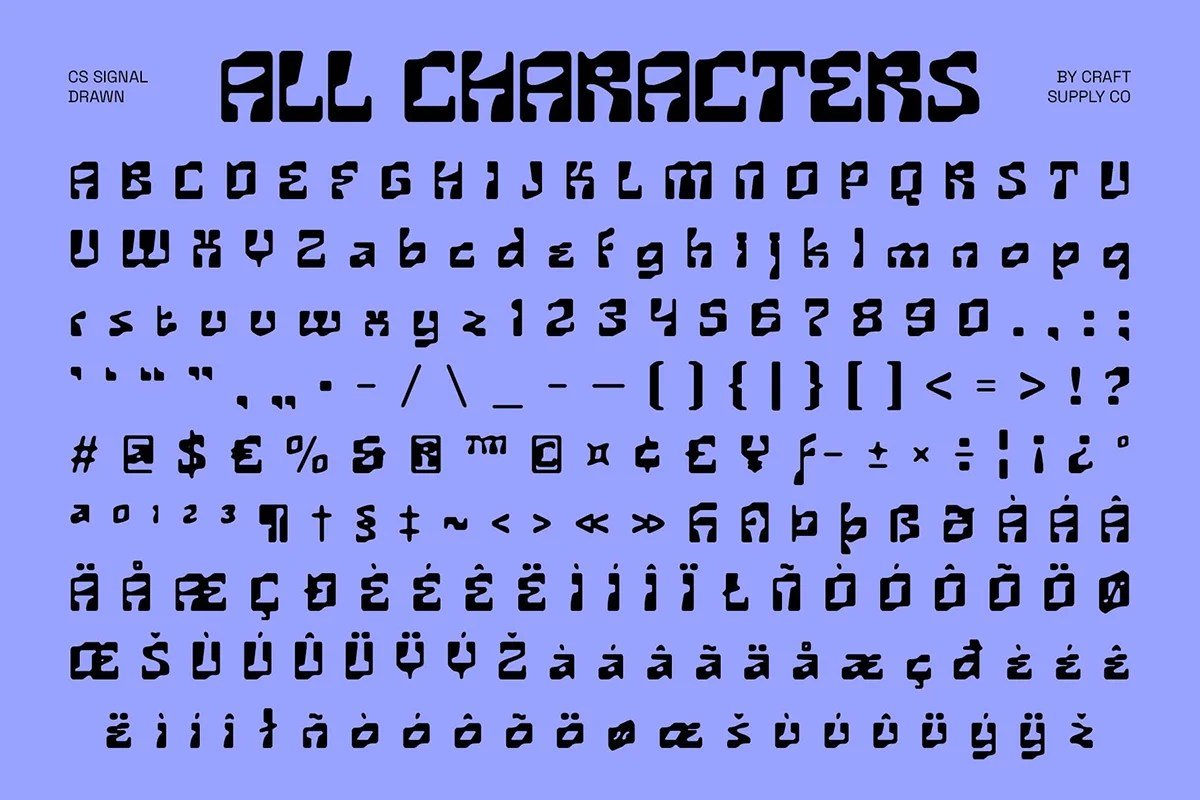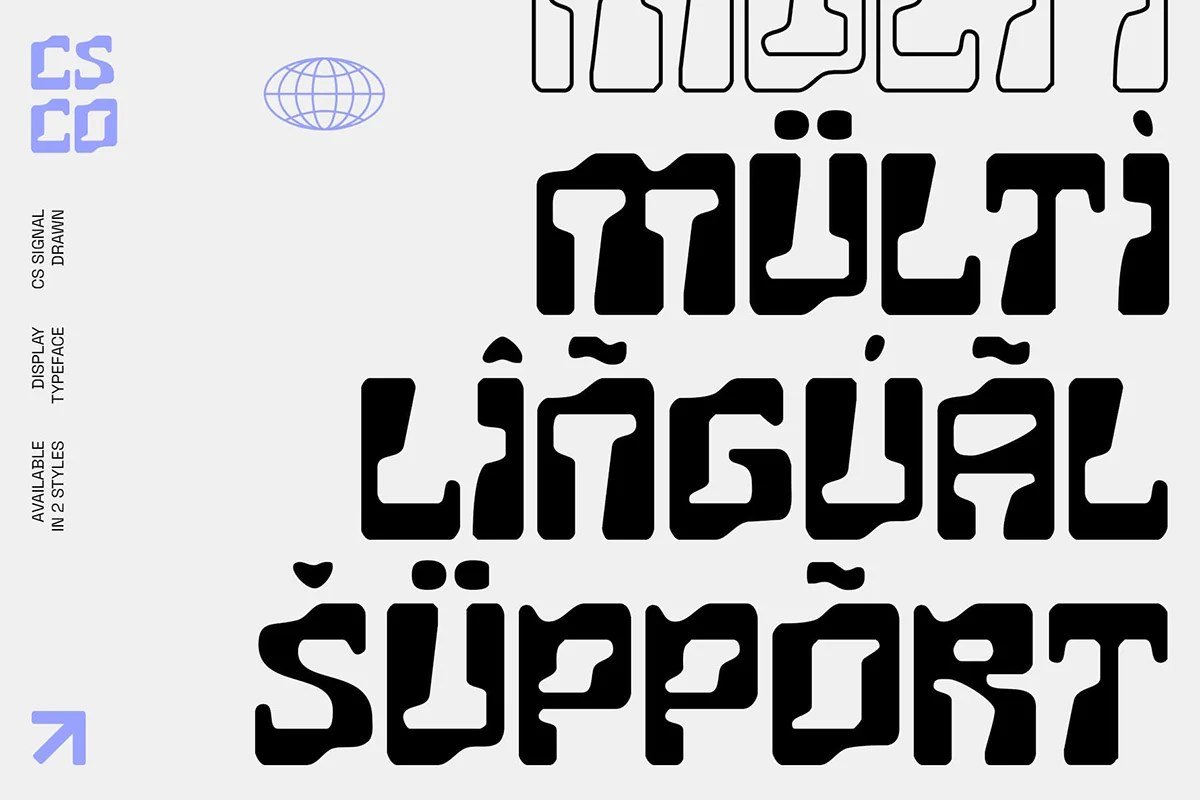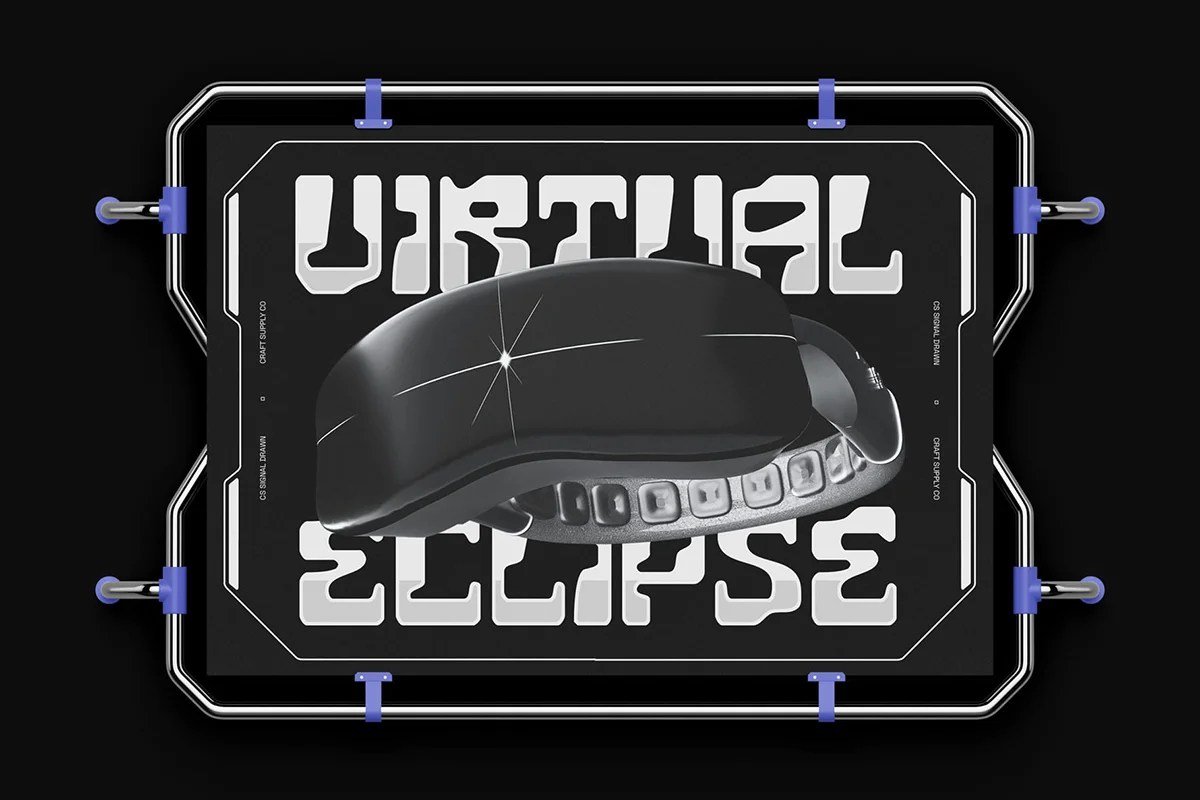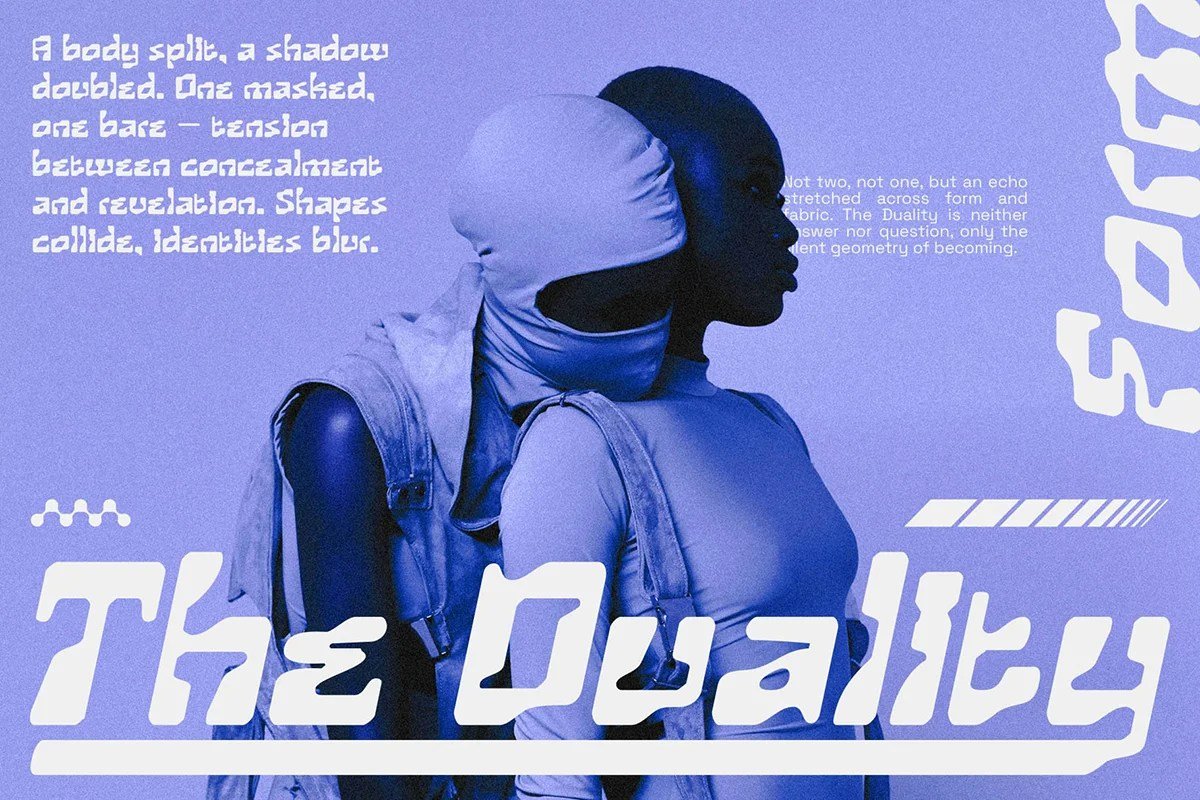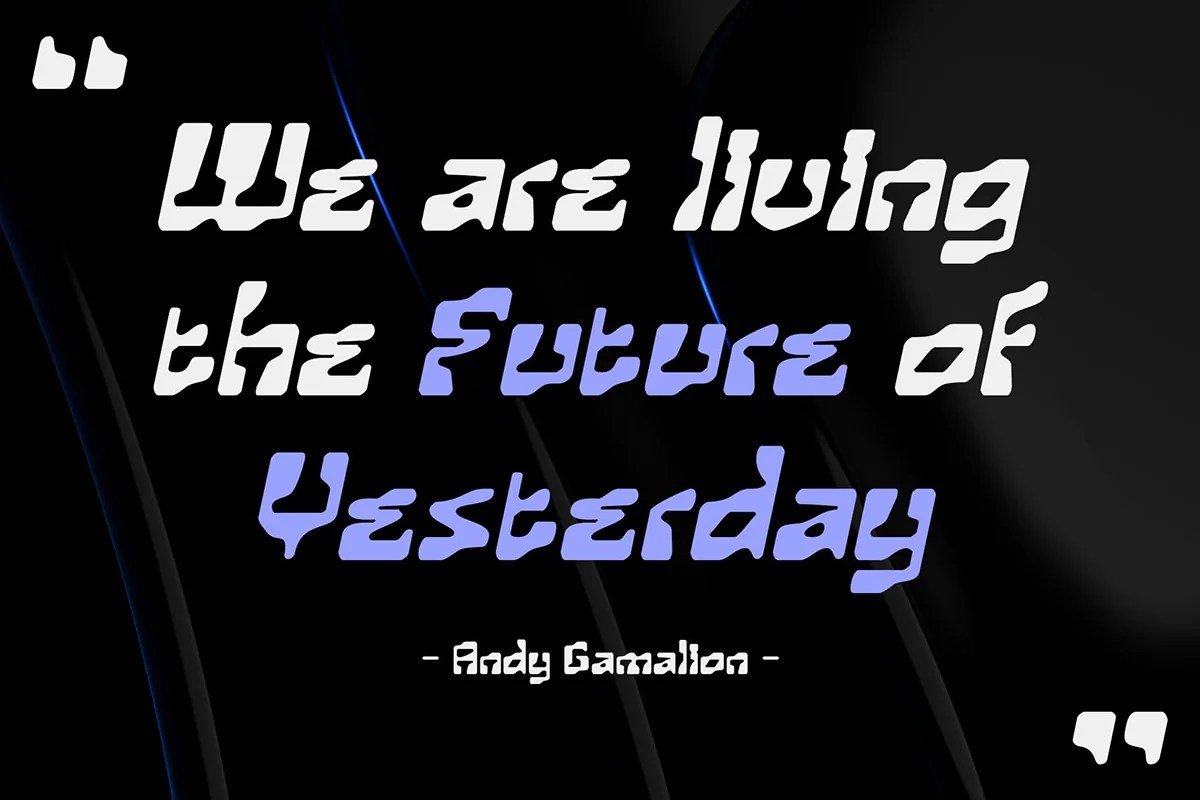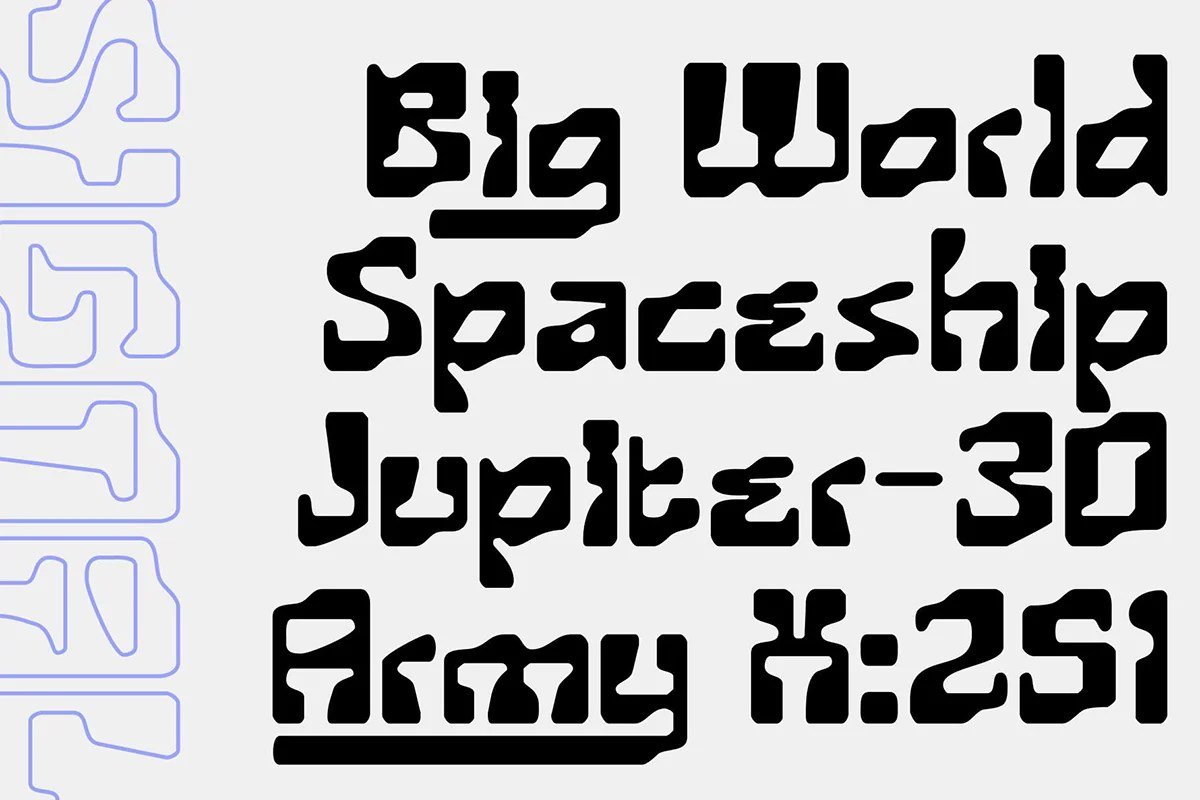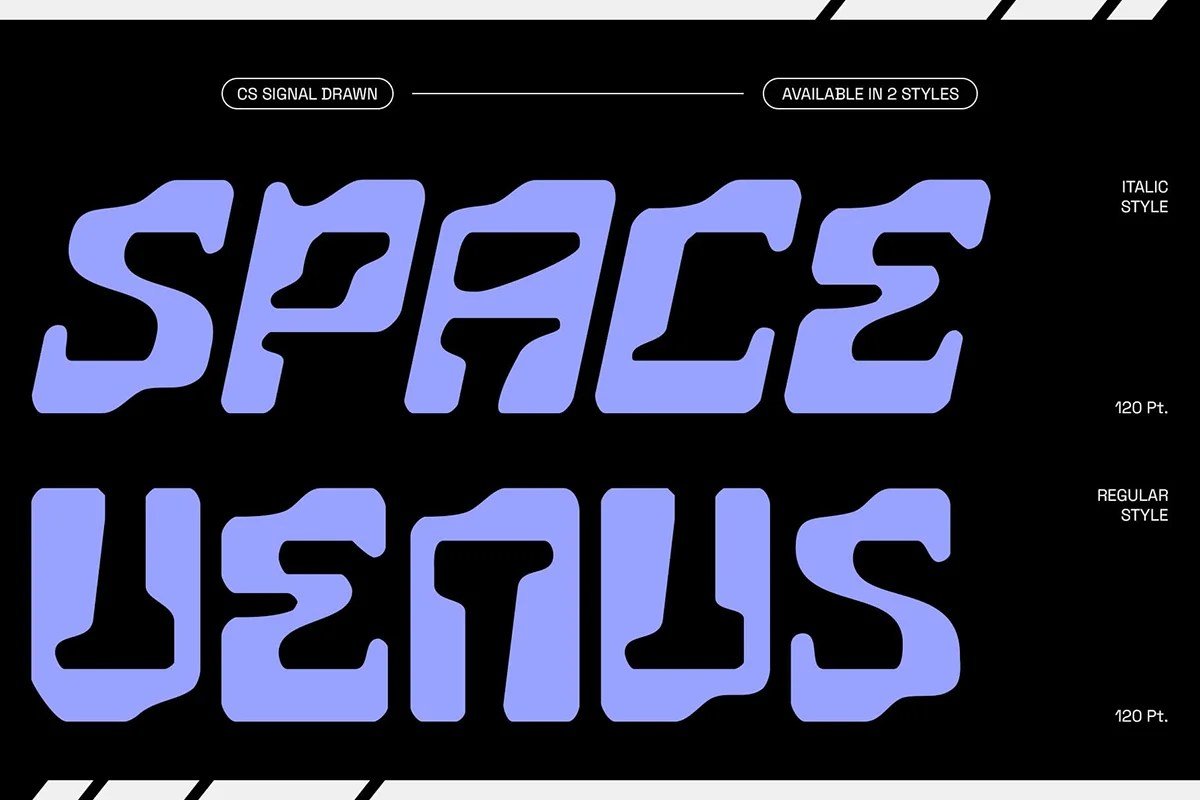
CS Signal Drawn Font is a hand-drawn display typeface that blends playful imperfection with bold, artistic energy. Designed to look organic and expressive, its irregular strokes give every letter a handcrafted touch that feels authentic and full of character.
Ideal for posters, album covers, logos, and branding projects, CS Signal Drawn Font brings warmth and creativity to both digital and print designs. Its handcrafted look makes it perfect for anyone seeking a lively and human-made aesthetic.
With a balance of artistic charm and modern design appeal, CS Signal Drawn Font ensures your visuals stand out with personality and originality.